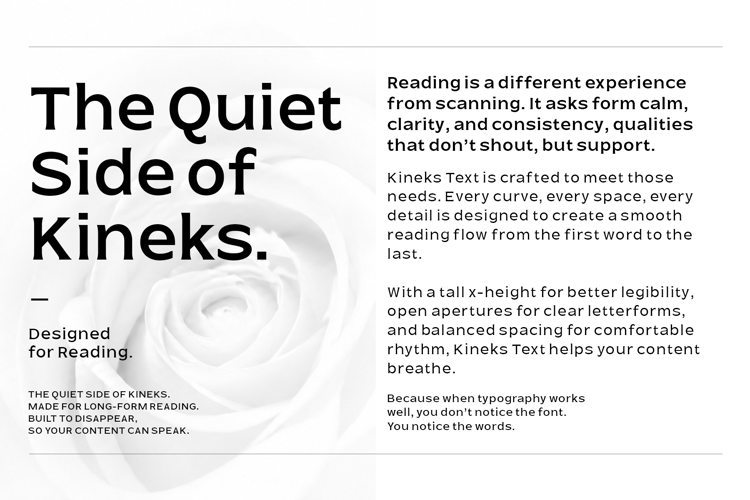
Kineks Text Font
Kineks Text is a neo-grotesque sans serif typeface designed for comfortable reading across editorial, digital, and everyday communication.
Born from the DNA of Kineks Display, Kineks Text retains the character of the Kineks system while refining its proportions, spacing, rhythm, and details for text sizes. The result is a balanced typeface designed to remain clear and comfortable across extended reading.
The full commercial family features:
10 Font Styles
Neo-Grotesque Design
Text-Optimized Proportions
Long-Form Reading Support
Multilingual Language Support
OpenType Features
Stylistic Alternates
Standard Ligatures
Ideal for:
Editorial Design
Web Design
UI/UX Design
Mobile Apps
Product Design
Documentation
Digital Publishing
Long-Form Content